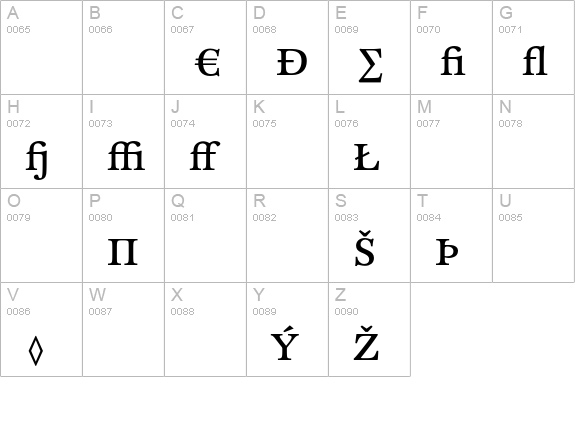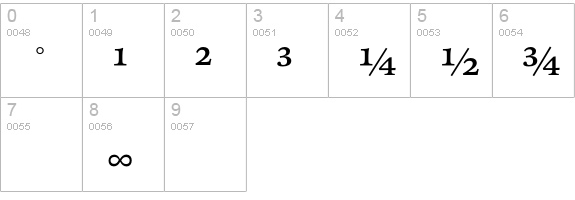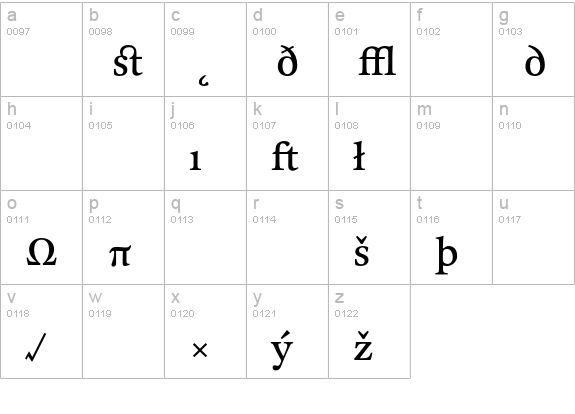
CliffordSix-RomanExpert is a sophisticated and elegant font that exudes timeless class and refinement. With its sleek lines and classic Roman styling, this font is perfect for adding a touch of sophistication to any project. The clarity and readability of CliffordSix-RomanExpert make it a versatile choice for a wide range of design applications, from branding and packaging to editorial design and more. Best of all, CliffordSix-RomanExpert is available for free download at FontsMarket.com. This means you can access this high-quality font without having to break the bank. Whether you're a professional designer looking for a new go-to font or a hobbyist looking to elevate your projects, CliffordSix-RomanExpert is a fantastic choice that won't cost you a thing. Download it today and add a touch of elegance to your designs!